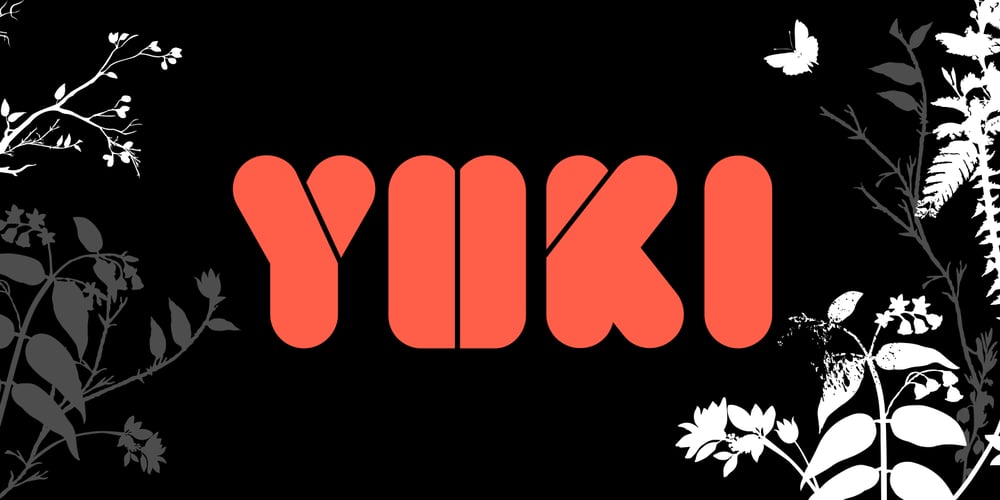
Yuki Font Family was designed by Alex Haigh and published by HyperFluro. Yuki contains 4 styles and family package options. Yuki is a full and rounded font that also manages to be compact, so when you need to make a big impact in a small space and still maintain a friendly feel, Yuki is here to do the job. In two different styles, each with bold alternatives, Yuki’s best function is to grab attention without taking up too much space. The lined form allows it to look even more streamlined in this performance, cutting shapes into more easily digestible pieces, while the bold forms create even more smoothness. Use Yuki for quick, impactful statements without being aggressive.